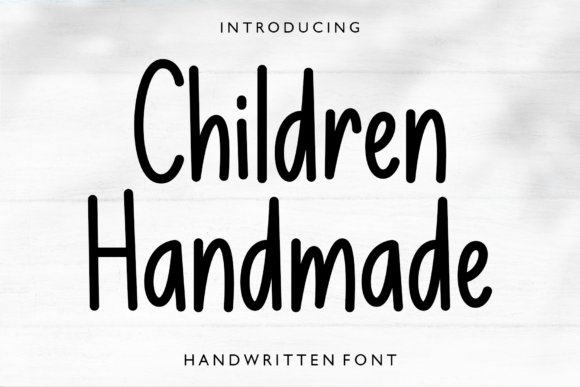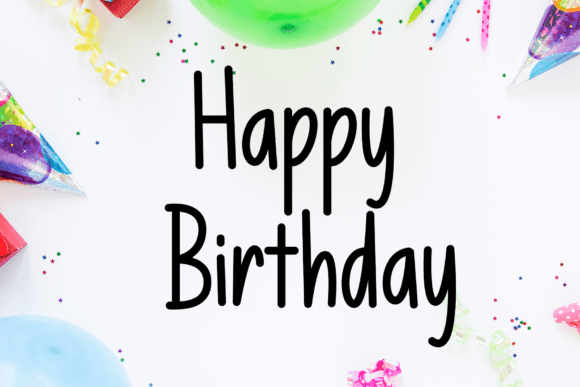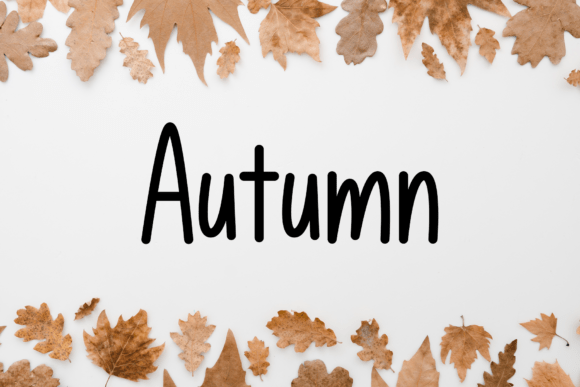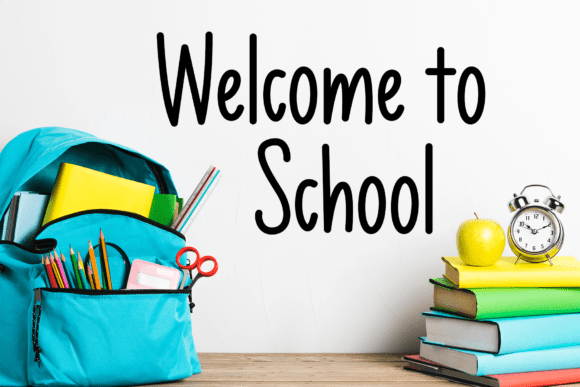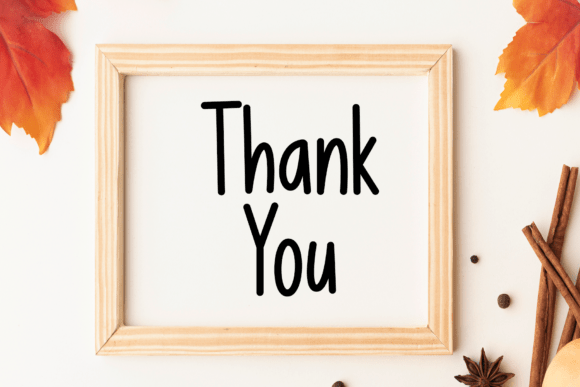
Unleashing the Whimsy of Childhood: Introducing Children Handmade Font
Who among us hasn’t at some point found themselves lost in the simple joys of a child’s art? A scribbled drawing, a hastily written note, or a carefree doodle can instantly transport us back to a time of unbridled creativity and innocence. It’s this very essence that the “Children Handmade” font seeks to capture, distilling the playful spirit of childhood into a charming typographic experience.
Designed to evoke the tender strokes of a child’s penmanship, the “Children Handmade” font is a delightful addition to any designer’s toolkit. Its gentle curves and tiny stature imbue it with a sense of whimsy and playfulness, making it an absolute treasure trove for designers seeking to inject a dash of childlike wonder into their work. Whether you’re crafting a children’s book, designing a family-friendly website, or simply looking to add a touch of sweetness to your typography, the “Children Handmade” font is sure to bring a smile to your face.
Key Features of Children Handmade Font
- Font Family: This font comes in a single family with multiple weights and styles, making it suitable for a wide range of applications.
- Character Set: Includes a wide range of characters, including Latin, Cyrillic, and Greek alphabets, as well as punctuation marks and numbers.
- Unique Characteristics: Handmade, childlike aesthetic with imperfect, hand-drawn lines and textures, adding a touch of whimsy and personality to any design.
Review of “Children Handmade Font”
I must say, “Children Handmade Font” has a certain charm to it. The font is reminiscent of handwritten notes from a child, which can add a playful touch to any design project. ✨
- The font’s imperfections, such as uneven letter spacing and quirky letterforms, can give a design a unique and whimsical feel.
- The font’s size and style can be easily customized to suit various design needs.
- It’s perfect for projects that require a sense of nostalgia or a touch of childlike wonder.
However, there are some limitations to consider. ⚠️
- The font may not be suitable for large blocks of text, as the uneven letter spacing can make it difficult to read.
- The font’s quirks may not appeal to everyone, and some designers may find it too informal or unprofessional.
- The font may require additional styling to make it consistent throughout a design project.
Overall, I think “Children Handmade Font” is a great choice for designers who want to add a touch of whimsy and personality to their projects. However, it’s essential to use it judiciously and consider the design’s context and audience.
For best results, use the Children Handmade Font in conjunction with bold and italic text styles to add emphasis and create visual interest.
The Children Handmade Font is perfect for:
Children’s party invitations and decorations
Illustrated children’s books and educational materials
Family and baby-themed designs